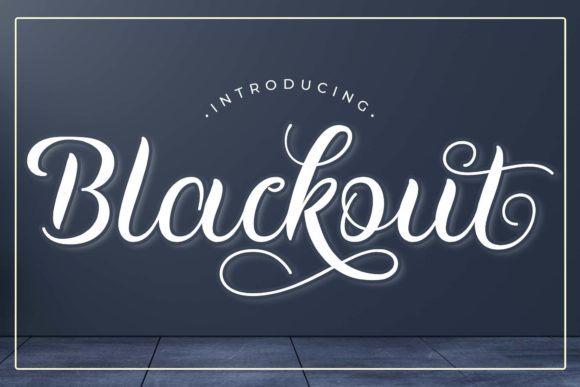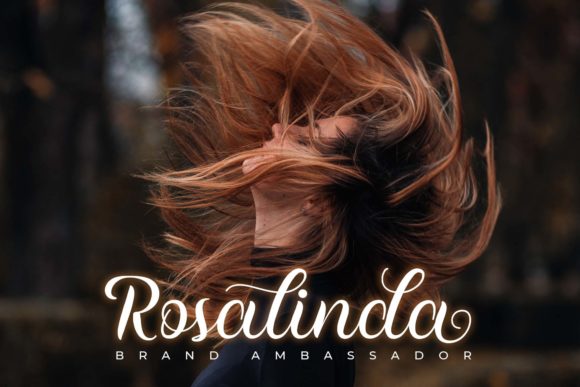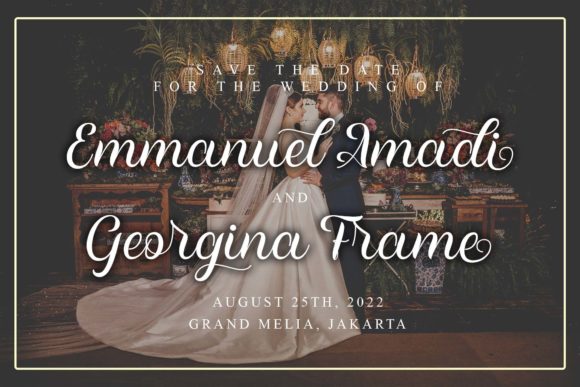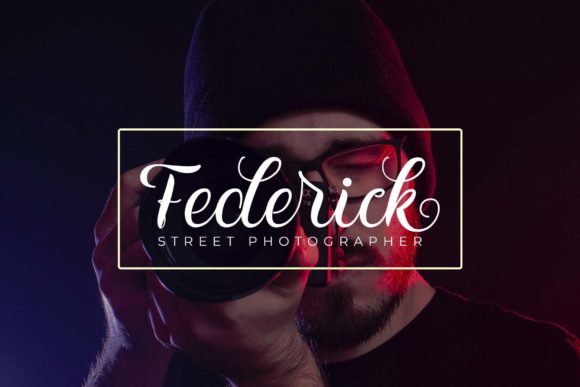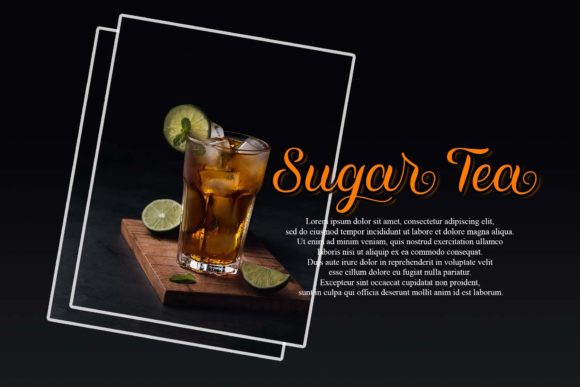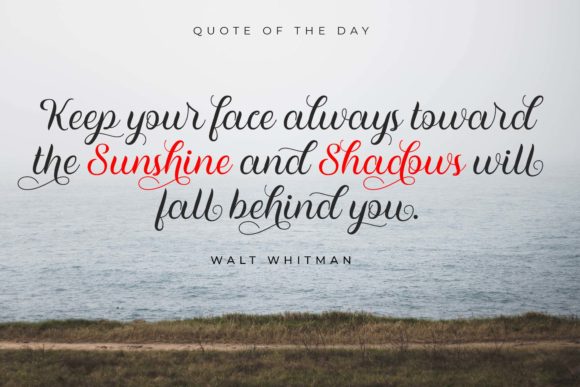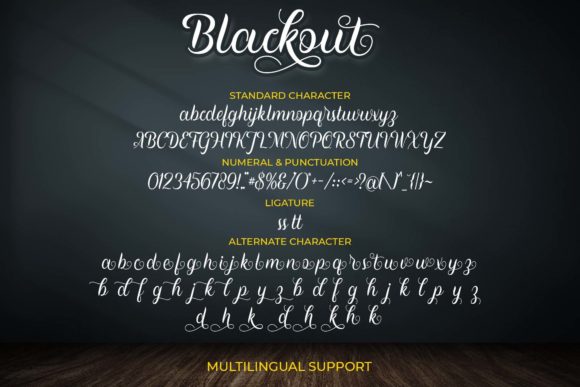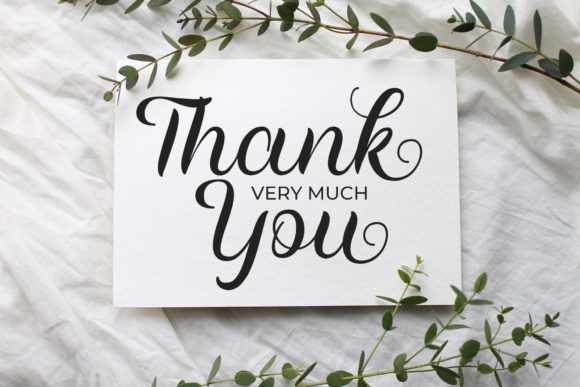
About Blackout Font
“Introducing Blackout, a romantic and sweet calligraphy typeface that brings a touch of elegance to any design project. With characters that dance along the baseline, Blackout adds a luxury spark, transforming ordinary designs into extraordinary creations.
Blackout is not just a font; it’s a tool that empowers designers to express their creativity. Its unique style makes it perfect for a wide range of applications, from wedding invitations to branding, logos, and more. The versatility of Blackout is one of its most appealing features, making it a must-have in every designer’s toolkit.
One of the standout features of Blackout is its PUA encoding. This means you can access all of the amazing glyphs and ligatures with ease, allowing for even more creative freedom. Whether you’re designing a logo or crafting an invitation, the additional glyphs and ligatures offer endless possibilities for customization.
But what sets Blackout apart from other typefaces? It’s the attention to detail. Each character has been carefully crafted to ensure it not only looks good but also performs well in a variety of settings. The result is a typeface that is as functional as it is beautiful.
Blackout is more than just a pretty face. It’s a powerful design tool that can help elevate your projects to new heights. Whether you’re a seasoned designer or just starting out, Blackout offers something for everyone. Its ease of use, combined with its stunning visuals, makes it a popular choice among designers worldwide.
In the world of design, the right typeface can make all the difference. It can set the tone, convey a message, and even evoke emotions. That’s why choosing the right font is so important. And with Blackout, you’re not just choosing a font; you’re choosing a partner that will help bring your designs to life.